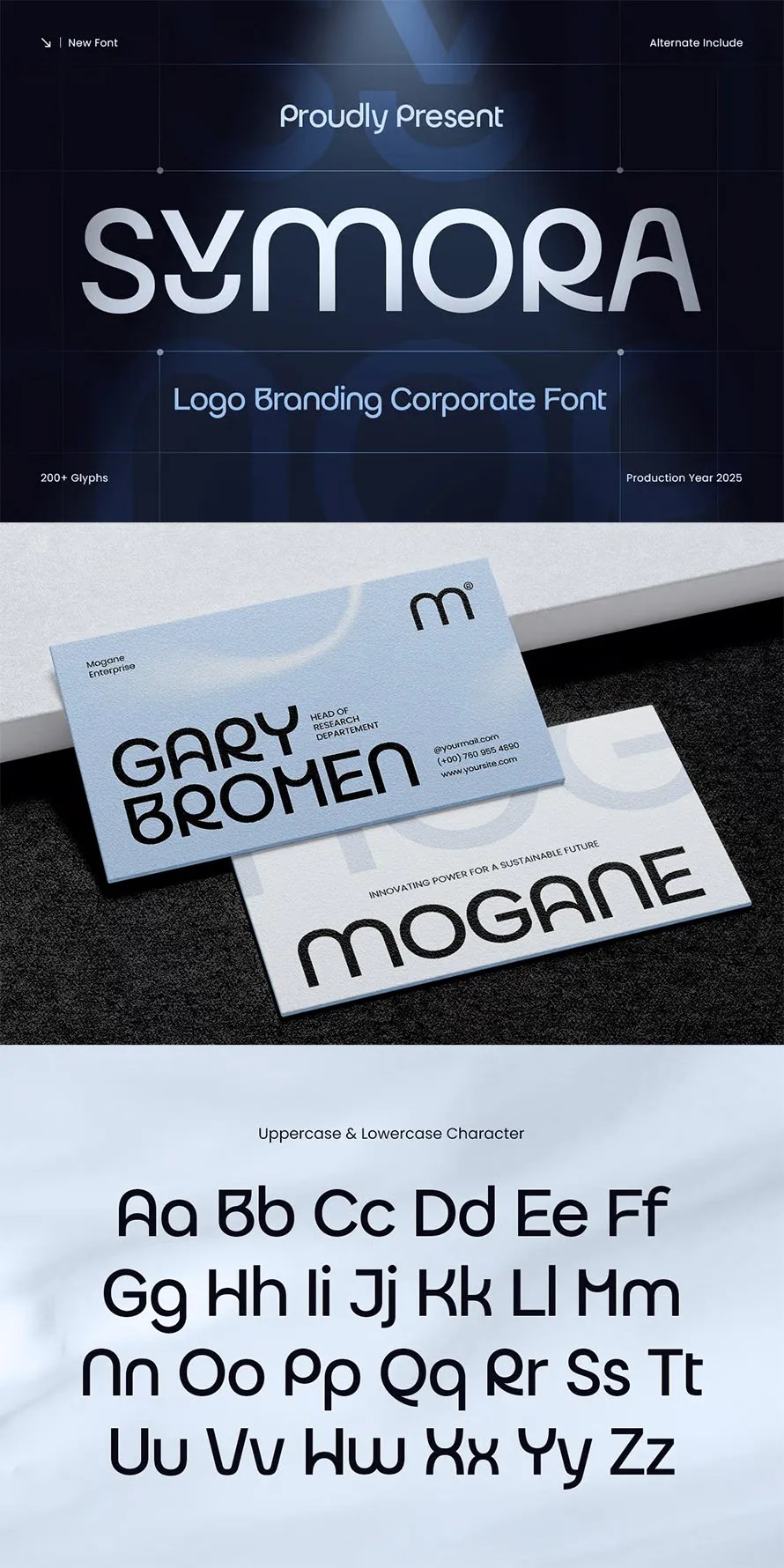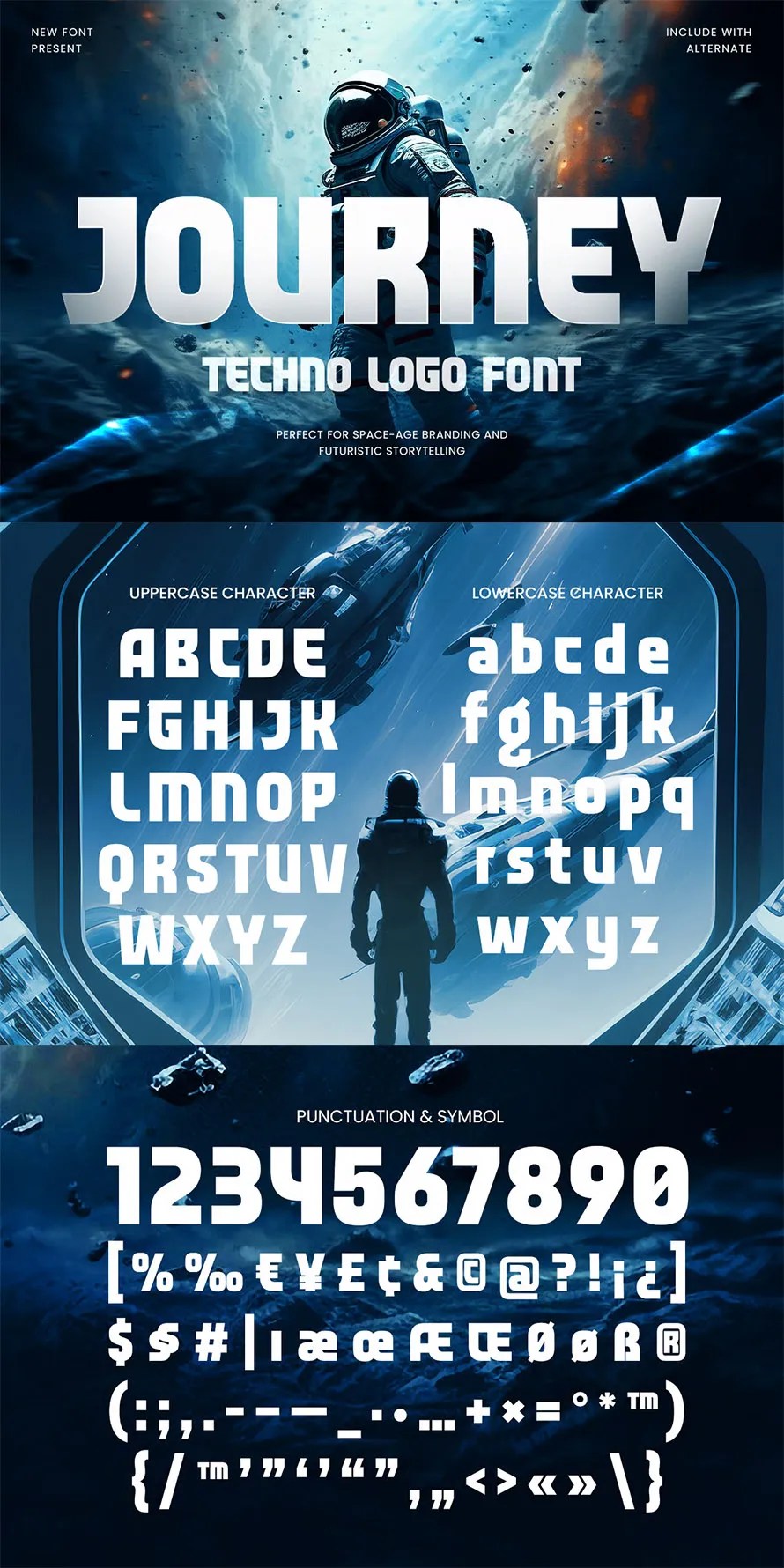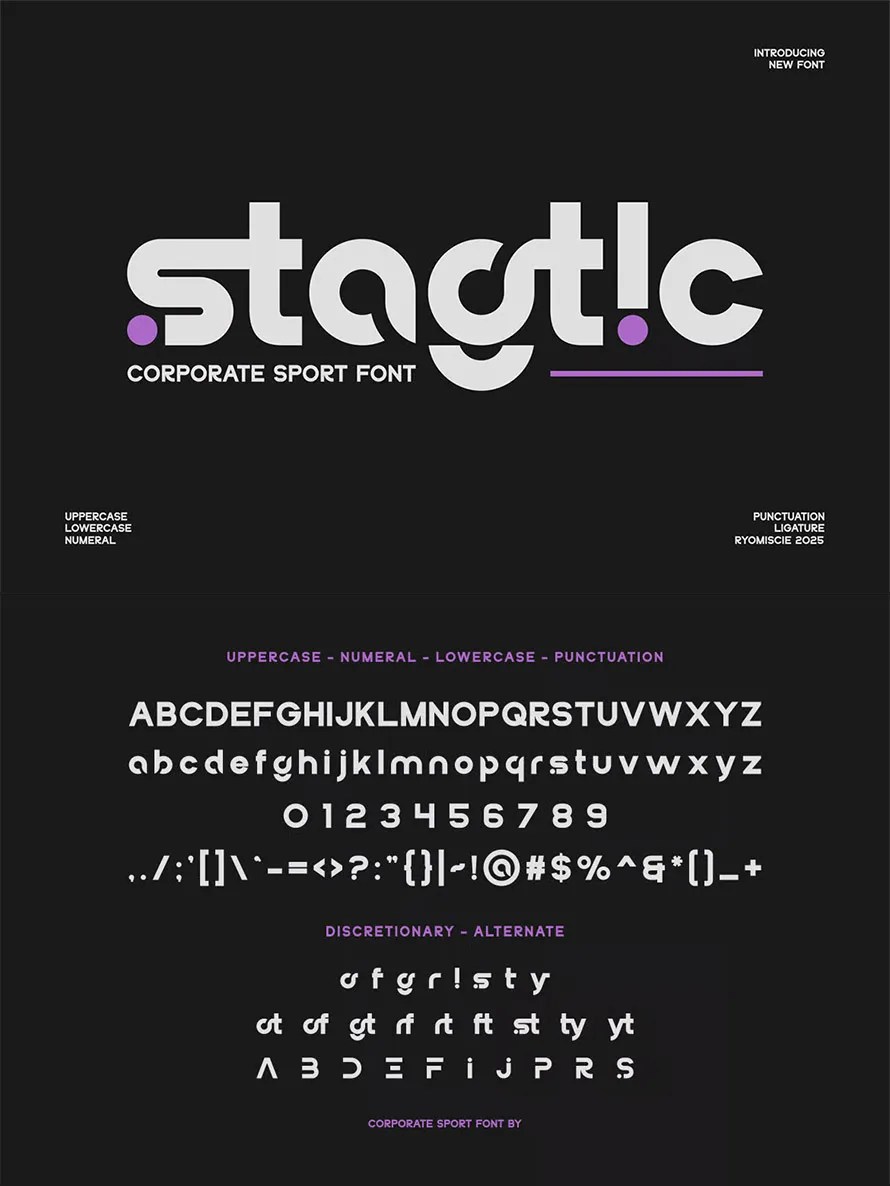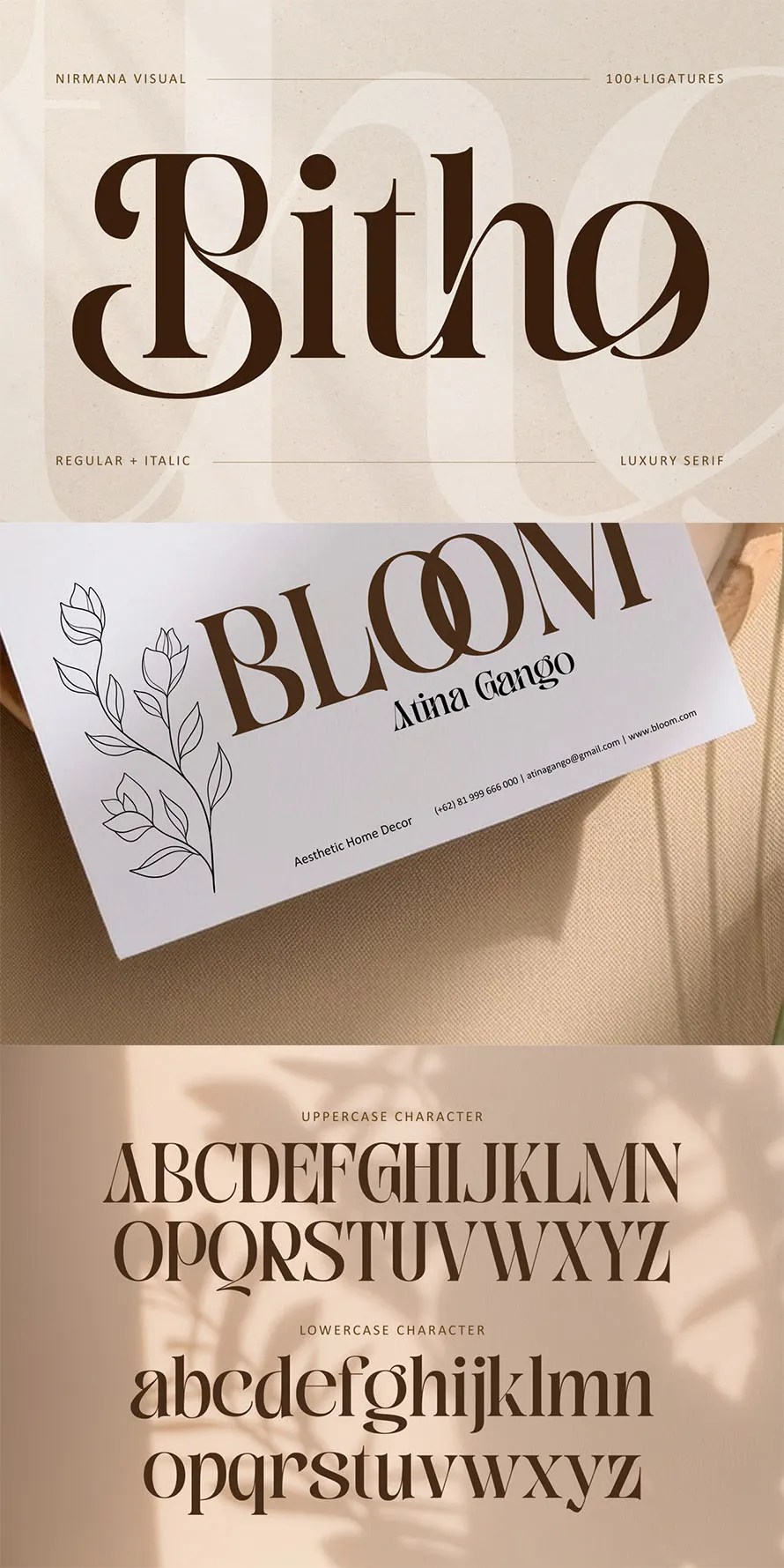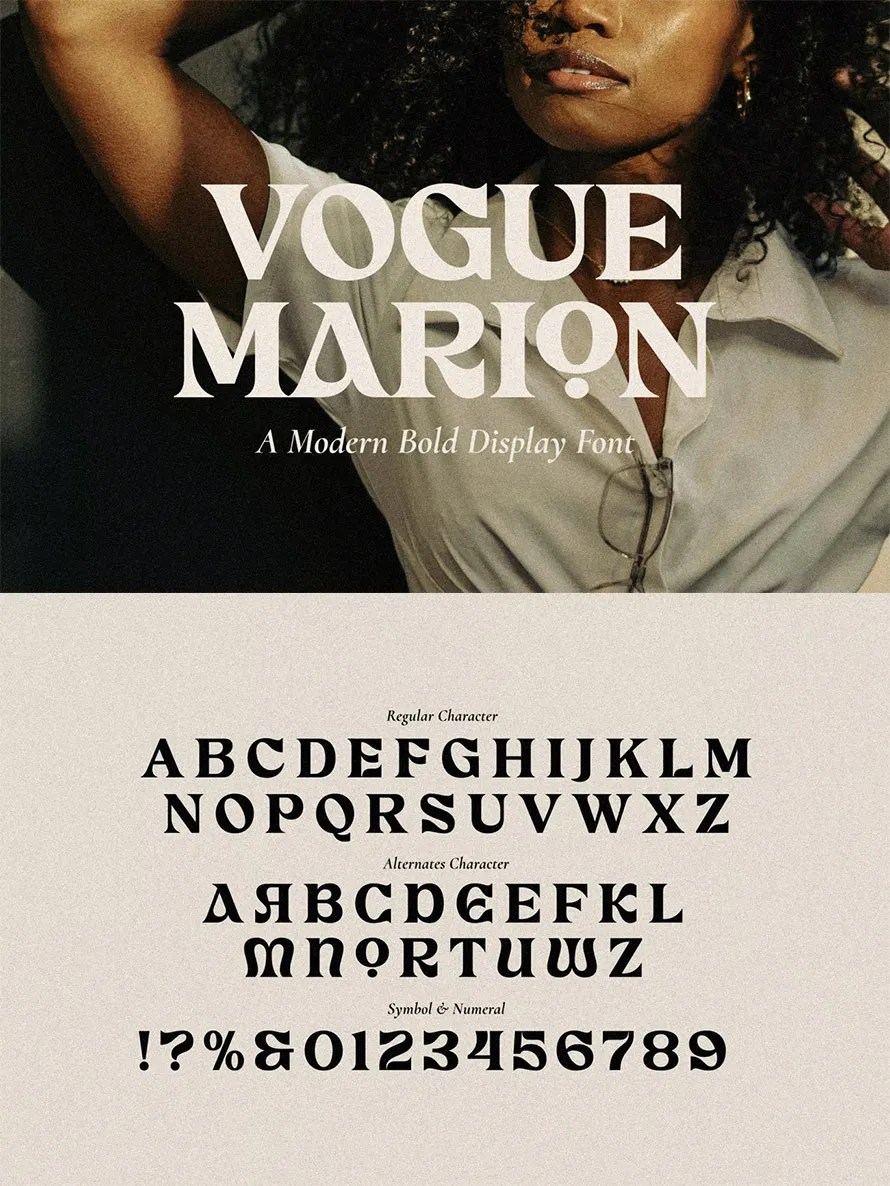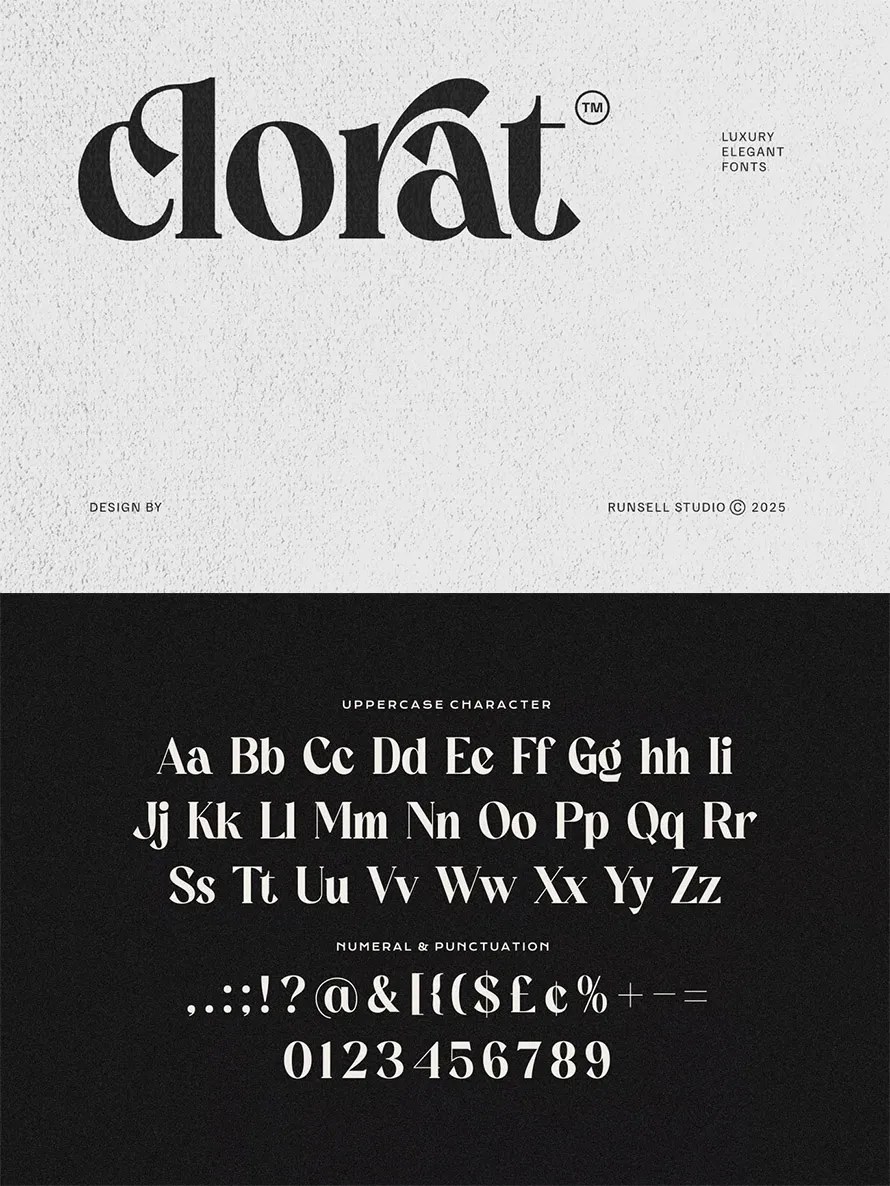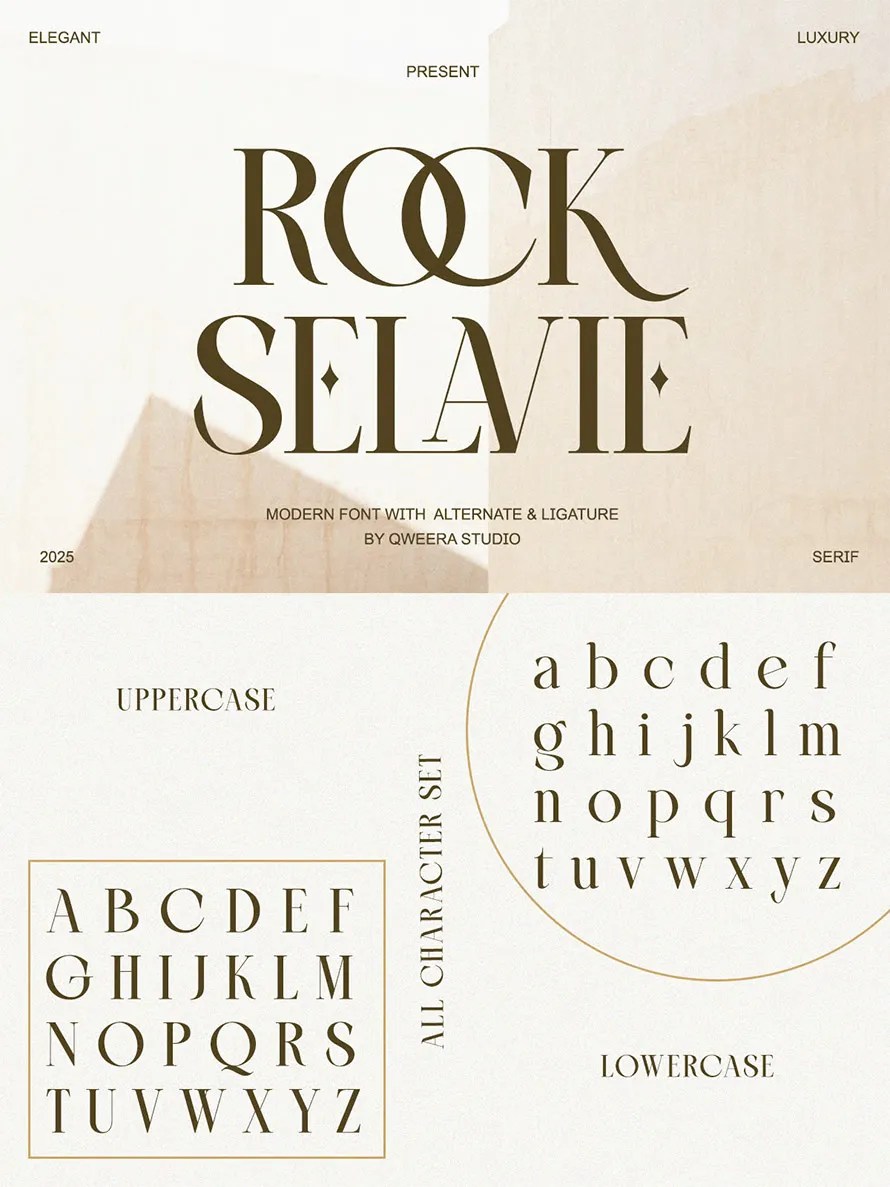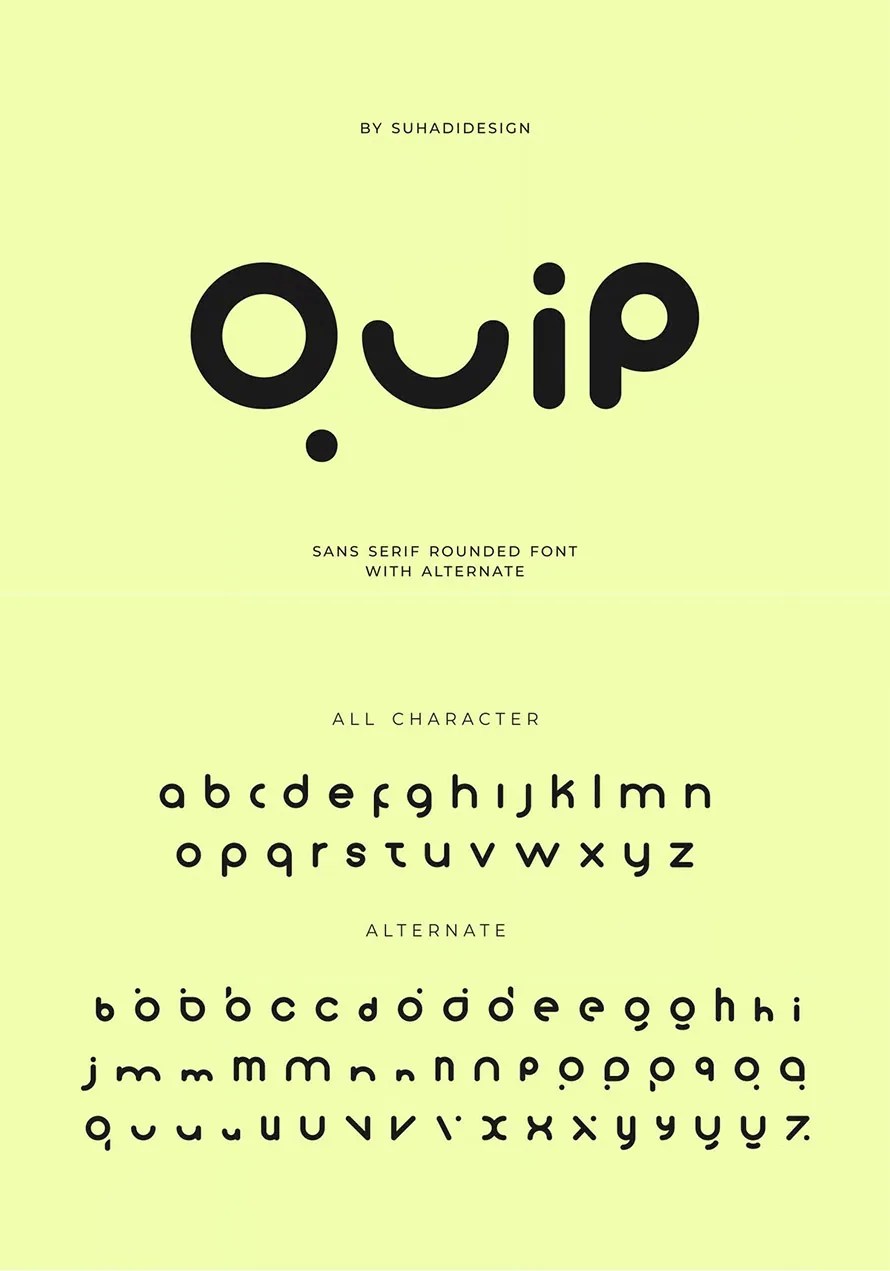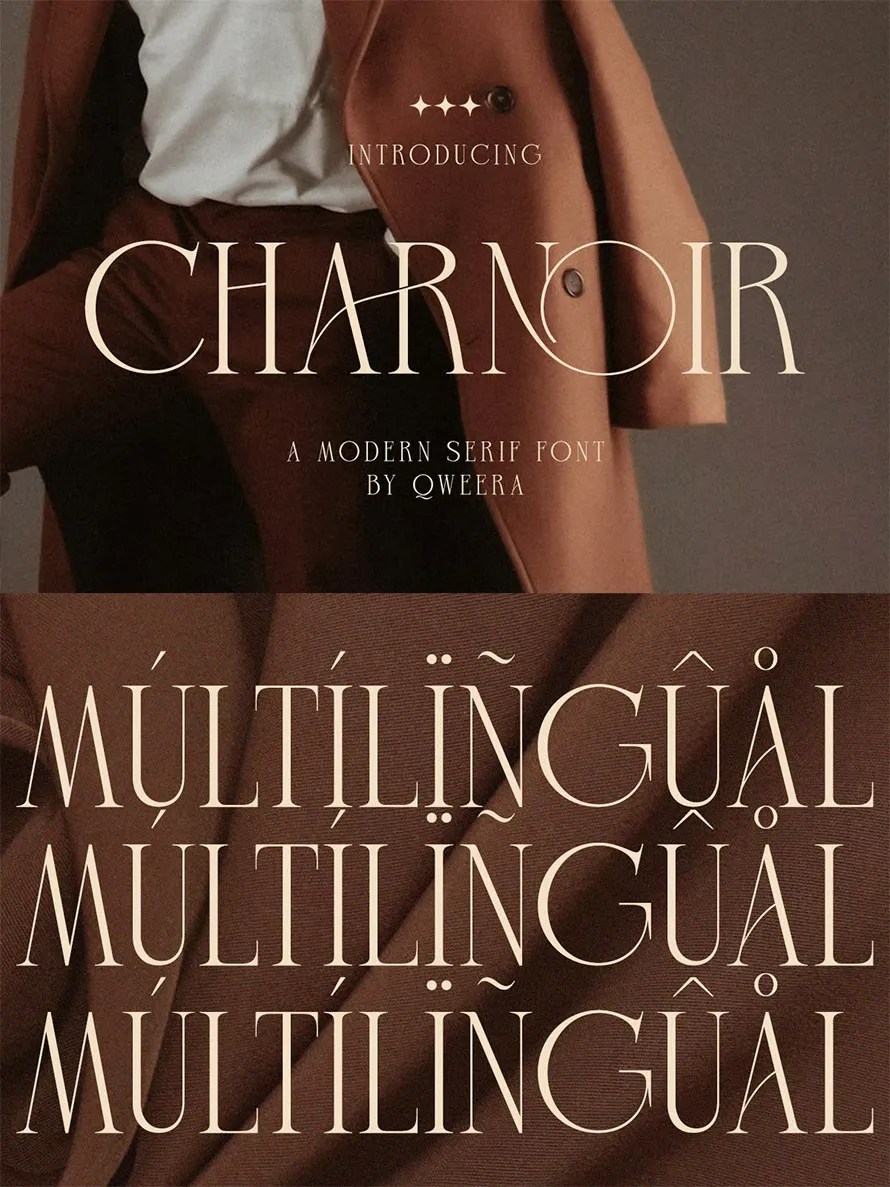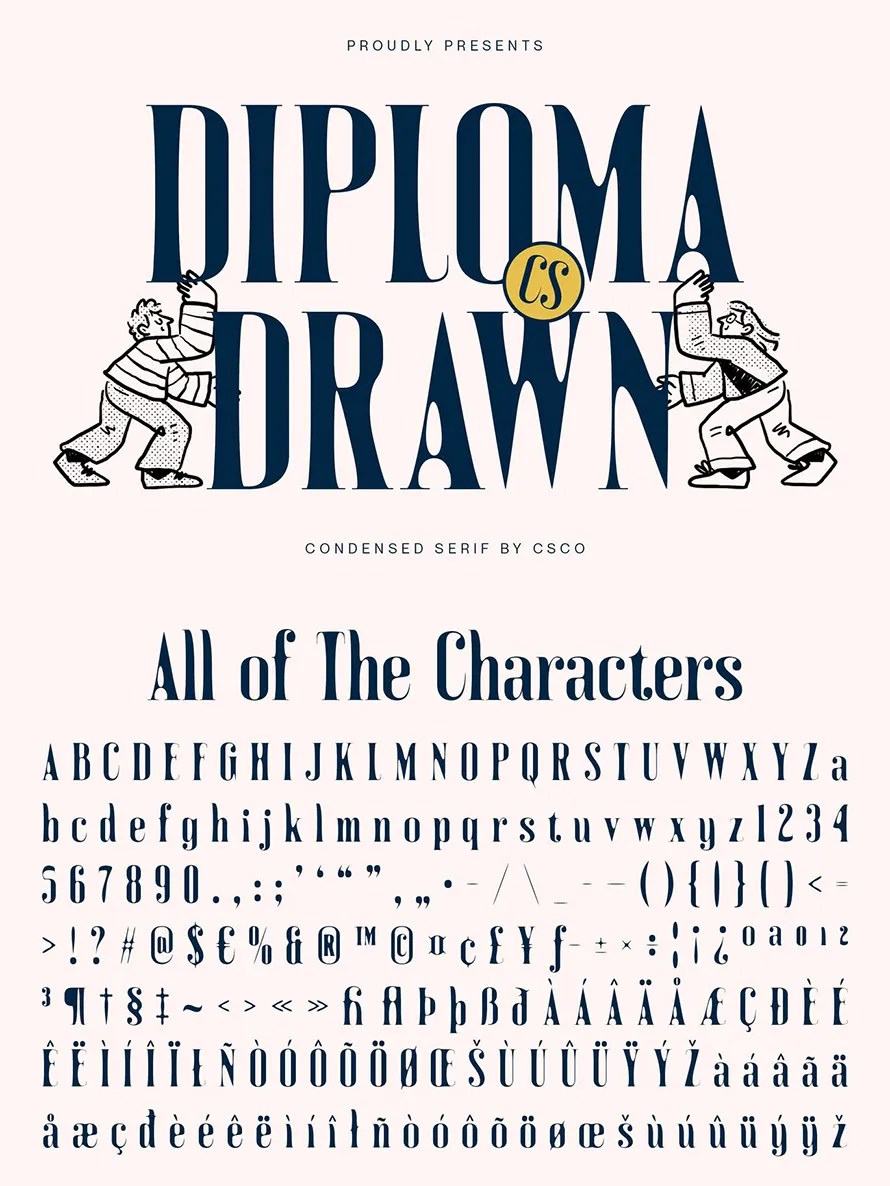
Logo design keeps changing, but one thing stays important “the font“. A logo font sets the whole attitude of a brand, and in 2025 we’re seeing new styles that feel cleaner, sharper, and more flexible and hope this will continue in 2026. This roundup shares the best new logo fonts designers are picking this year so you can create logos that look strong and truly stand out.
Logo fonts are doing more work than ever. Brands want logos that feel clean, bold, and personal, and the font you choose decides that energy. Even a simple wordmark can look strong or weak just by switching the typeface.
In 2025, designers aren’t chasing complicated styles. They want smart shapes, readable letters, and fonts that instantly show a brand’s personality. That’s why good logo fonts will matter in 2026 – they make a logo feel real.
20+ New Logo Fonts for Logo Design
A logo font shouldn’t fight for attention. It should feel natural and easy, but still strong enough to stand on its own. The best logo fonts have clear shapes, good spacing, and a look that stays recognizable anywhere. Whether it’s on a website, a package, or a tiny icon, the letters should hold their style. Designers choose fonts that feel simple but have something unique in the curves, angles, or weight. Small details make a logo feel like it belongs to a real brand.
As a designer, I know logo design feels different every year, but one thing doesn’t change “the power of a good font“. This list brings together 20+ new logo fonts that designers are using right now to create clean, modern, and memorable branding.
Donkey Ligature Technology Logo Font
Donkey – Ligature Technology Logo Font Donkey is a modern and futuristic logo font featuring sleek ligatures and clean geometric precision. Designed for technology-inspired branding, Donkey combines minimalism and innovation to create a strong visual identity that’s perfect for digital companies, startups, and creative brands.
Anoord Bold Logo Font
Introducing Anoord, a bold and modern typeface. With its strong, impactful lines and distinctive cut details, Anoord is perfect for creating striking headlines, logos, and posters.
Symora Logo Branding Corporate Font
Symora – Logo Branding Corporate Font Symora is a modern and elegant sans-serif font crafted for professional logo design and corporate branding. Its clean lines, refined geometry, and balanced proportions create a strong visual identity that communicates trust, sophistication, and innovation.
Journey Techno Logo Font
JOURNEY is a techno logo font built for the future of digital design. With sharp geometric forms, futuristic aesthetics, and balanced proportions, it’s perfect for brands, startups, and creative projects that want to communicate innovation and forward-thinking identity.
Nebila Display Font
Nebila Sans Font Display Font Logo is and awesome and authentic display font.
Stagtic Corporate Logo Sport Font
Stagtic Font- Modern Font is a bold and authentic display font. The font is suitable for any branding project like logo, esport, and many more. outstanding in a wide range of contexts.
Bitho Modern Logo Font
Bitho Luxury offers beautiful typographic harmony for a diversity of design projects, including logos & branding, social media posts, advertisements & product designs.
Elegant Corporate Logo Vogua Font
Vogua Elegant Corporate Logo font is crafted with a clean elegant and minimal style, designed to elevate professional and creative projects alike. Its bold yet refined character makes it the perfect choice for a corporate logo that communicates confidence and clarity.
Elegant Corporate Logo Clorat Font
Clorat Elegant Corporate Logo font is crafted with a clean elegant and minimal style, designed to elevate professional and creative projects alike.
Rock Selavie Modern Elegant Luxury Logo Font
Rock Selavie is a modern luxury serif typeface with stylish alternates and refined ligatures.
Quip Sans Serif Rounded Alternate
Hi, ladies and gentlemen! Following market demand, I created a minimalist sans serif font that’s contemporary, elegant, and cool.
Charnoir Modern Elegant Luxury Logo Font
Tailored for fashion editorials, branding for premium products, and elegant logos, Charnoir carries an aura of mystery and timeless beauty.
Diploma Drawn Font
Sleek, Sophisticated, and Artistically Defined CS Diploma Drawn is a modern serif font that features a clean, sharp, and condensed letterform structure, refined with a delicate drawn effect that gives it a warm, handcrafted presence.
Graindal Modern Vintage Elegant Logo
Graindal is a bold modern vintage typeface that blends elegance with ornamental retro aesthetics.
Agneos Modern Expanded Techno Logo Font
AGNEOS is a modern expanded techno futuristic font designed to push the boundaries of digital branding. With its bold, extended letterforms and sharp geometric style, AGNEOS creates a strong visual identity that resonates with futuristic and tech-forward projects.
Polea Modern Logo Font
In response to market demand, I created a minimalist sans serif font that is modern, elegant, and cool. Therefore, I decided to create this sans serif font.
Afigre Bold Sports Font
Afigre is a bold and aggressive display font crafted for speed, power, and precision. Inspired by the high-octane world of motorsports, Afigre combines sharp cuts, slanted angles, and aerodynamic forms to deliver a striking typographic presence.
Vlatcho Modern Elegant Luxury Logo
Designed with balanced curves, sharp strokes, and exclusive ligatures, Vlatcho is your ultimate font for branding elegance, high-end publishing, and bold typography statements.
Stravon Corporate Logo Modern Elegant Font
Stravon is a refined serif typeface designed to elevate your visual identity with a bold and intelligent personality.
Unique Display Bayrone Font
Bayrone is a refined and stylish typeface that merges elegance with modernity. Characterized by its elongated letterforms, high contrast strokes, and artistic curves, Bayrone brings a sense of luxury and sophistication to any design.
Blovi Core Bold Food Font
Blovi Core is a bold display font inspired by playful, food-themed designs. Its chunky and rounded letterforms create a cheerful and friendly impression, making it perfect for packaging, menus, logos, and various creative projects that need a fun and full-of-personality touch.
Bedross Modern Elegant Luxury Logo Font
Bedross is a sophisticated serif typeface that masterfully blends contemporary elegance with timeless refinement.
Obodo Logo Font
This font is perfect for posters, social media posts, branding, personal projects, etc.
These new logo fonts look fresh without trying too hard. They work for tech, fashion, lifestyle brands, and even small personal logos.